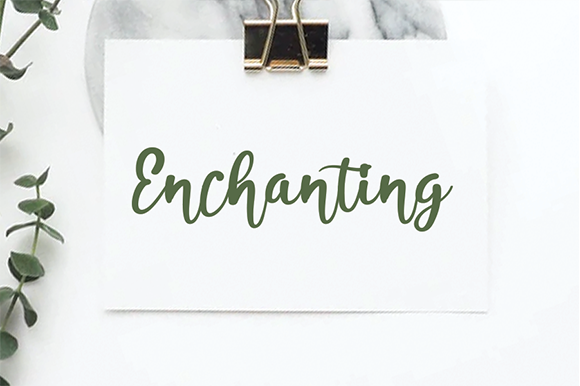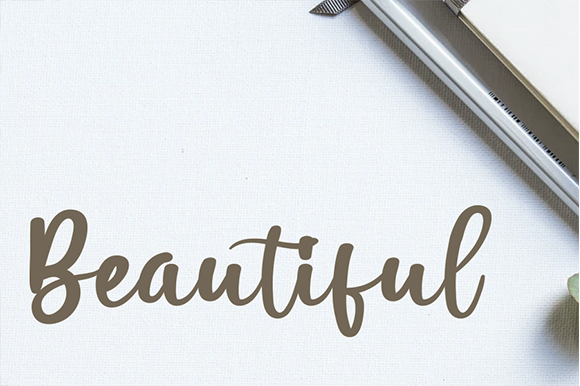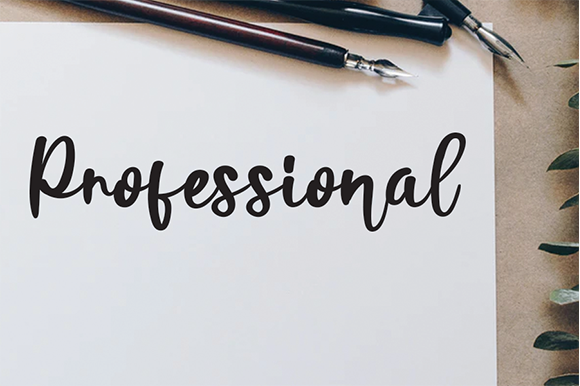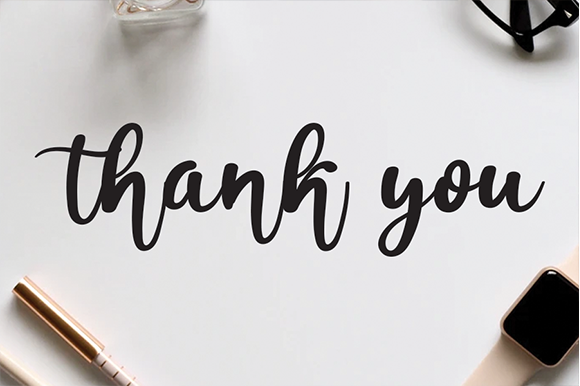
Introducing Amekanu Font: Elevate Your Design with a Touch of Classic Elegance
In the world of typography, fonts play a crucial role in bringing a design to life. A well-chosen font can make all the difference in capturing the essence of a message, conveying emotions, and creating a lasting impression. If you’re a designer, craftsperson, or simply someone who appreciates beautiful typography, you’ll love Amekanu Font – a stunning handwritten font that combines classic inspiration with a unique twist.
The Inspiration Behind Amekanu
Amekanu Font draws inspiration from classic typography, evoking a sense of nostalgia and timelessness. Its creators aimed to craft a font that not only pays homage to traditional typography but also brings a fresh, modern spin to the table. The result is a font that exudes elegance, sophistication, and a touch of playfulness.
What Makes Amekanu Special?
Amekanu Font is a versatile and highly adaptable font that can elevate any design project. Here are some of its standout features:
- Handwritten charm: Amekanu boasts a beautiful, handwritten aesthetic that’s perfect for adding a personal touch to your designs.
- Classic inspiration: With roots in traditional typography, Amekanu brings a sense of heritage and timelessness to your projects.
- Unique style: This font’s distinctive character set ensures that your designs will stand out from the crowd.
- Highly versatile: Amekanu is suitable for a wide range of applications, from headlines and titles to blocks of text.
Amekanu Font is an excellent choice for various design projects, including:
- Headlines and titles: Amekanu’s bold, expressive characters make it perfect for grabbing attention and creating striking headlines.
- Blocks of text: With its clear, readable design, Amekanu is also well-suited for longer blocks of text, making it ideal for articles, blog posts, and more.
- Web and print design: Amekanu’s versatility ensures that it will look great in both digital and print formats.
- Moving images: This font’s unique character makes it an excellent choice for animations, videos, and other motion graphics.
Why Choose Amekanu Font?
- High-quality design: This font has been carefully crafted to ensure that it looks amazing in any context.
- Unique style: Amekanu’s distinctive character set ensures that your designs will stand out from the crowd.
Amekanu Font is an exceptional addition to any design project. Its unique blend of classic inspiration and modern style makes it perfect for designers, craftspersons, and anyone looking to elevate their typography. Whether you’re working on a web design, print project, or animation, Amekanu is sure to make a lasting impression. So why wait? Discover the power of Amekanu Font and take your designs to the next level!
- Amekanu Font is a handwritten font inspired by classic typography.
- It’s perfect for headlines, blocks of text, and a variety of design applications.
- Amekanu boasts a unique style, high versatility, and ease of use.
- This font is suitable for web, print, moving images, and more.